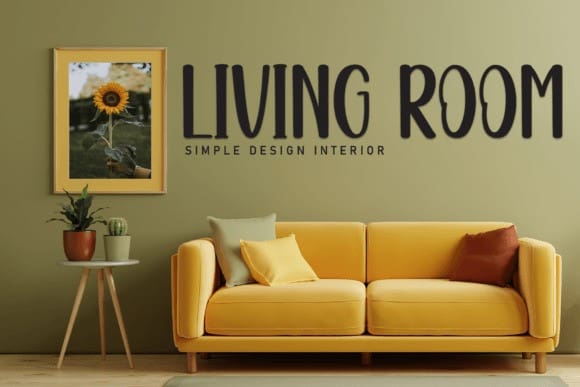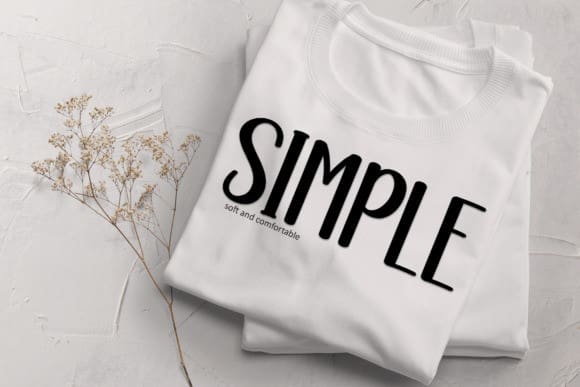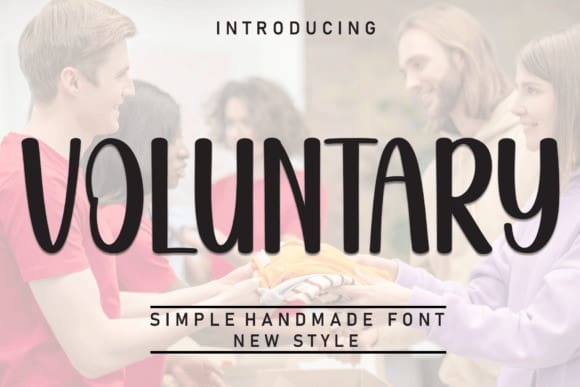
Voluntary Cute Font
Voluntary Cute Font is a sweet and friendly handwritten font. Fresh and cute, this font is ideal for writing wedding invitations, cards, or any other design that might need a fun touch!